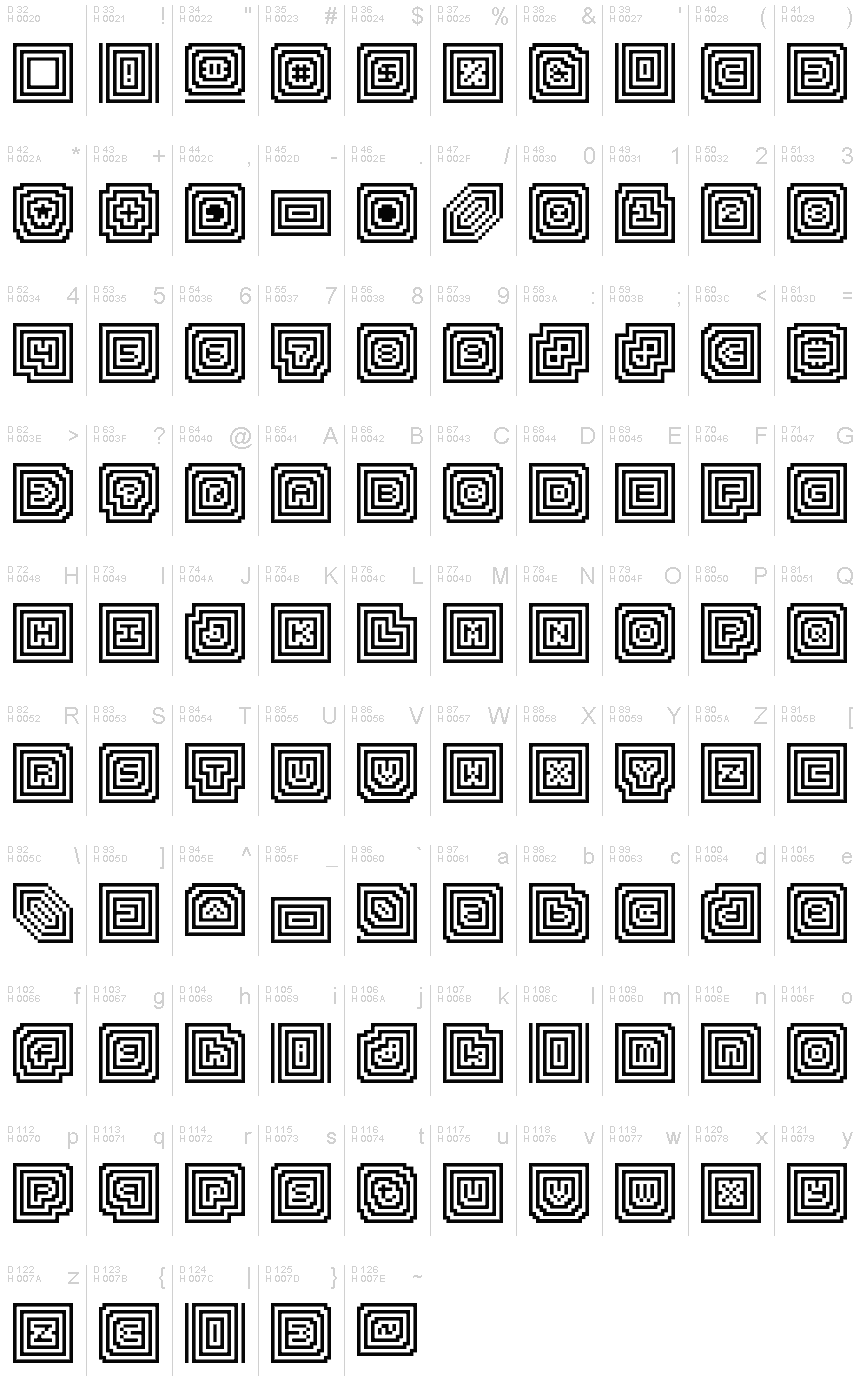
Radio Grave Regular
“Radio Grave” was built with FontStruct
Designer description: A multi-outline design with intentional aliasing.
At the original size, it looks nicely textured. The illusions become more harsh as one zooms in.